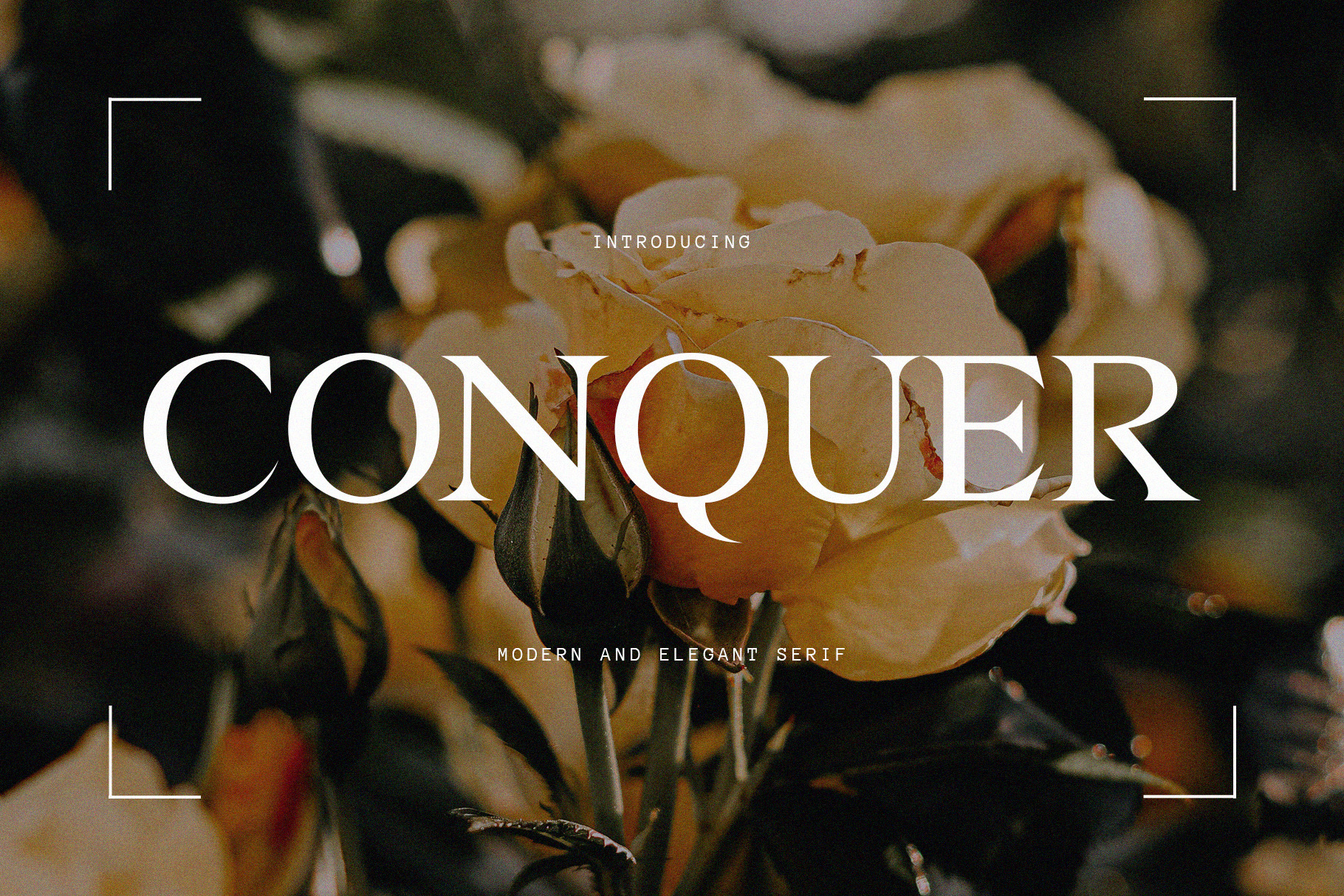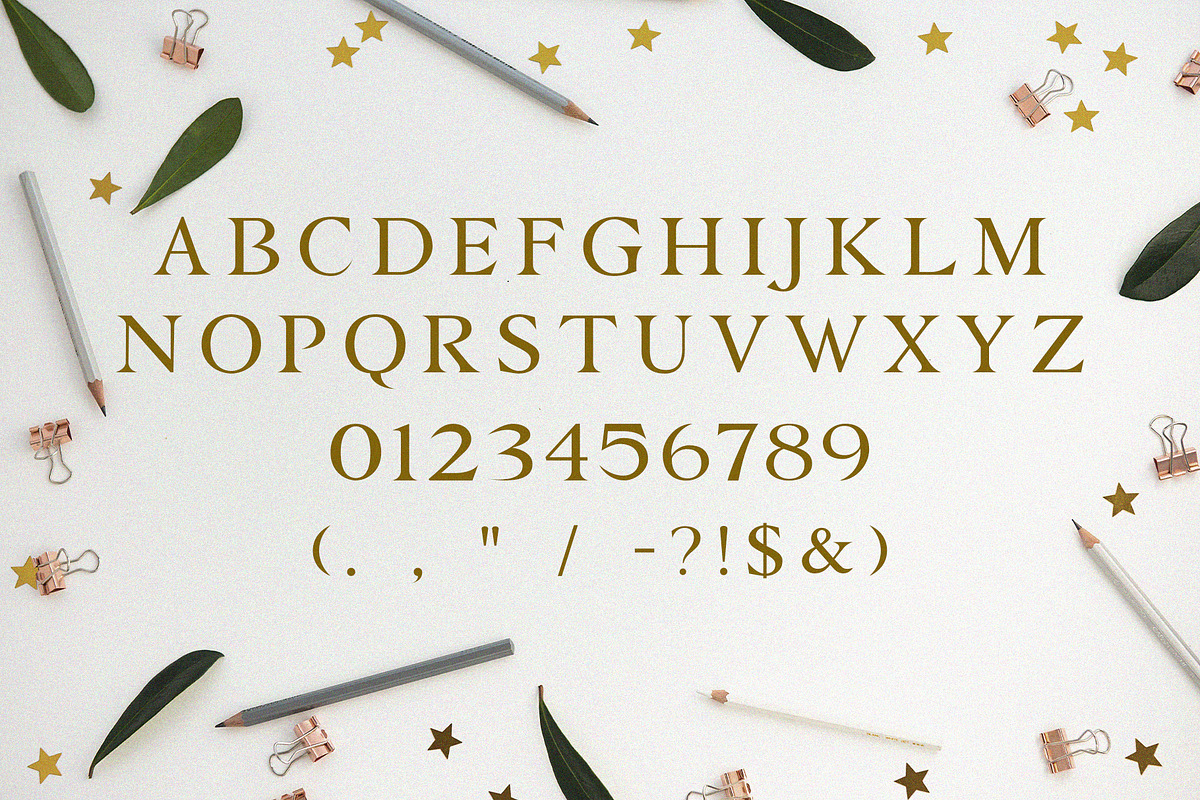
Conquer - modern serif Typeface
Introducing 'Conquer' Font:
Introducing Conquer, a modern indie serif font that captures the essence of creativity and individuality. With its unique and organic letterforms, blending a mix of curves and angles, Conquer brings a sense of playfulness and spontaneity to your design. This contemporary and indie-inspired font is ideal for a range of applications, from music branding to editorial design. Conquer's distinct and expressive style is guaranteed to infuse character and personality into your project, making it stand out with creativity and flair.
Ideal for:
- Modern Designs
- Beauty and Fashion
- Elegant Creations
- Versatile Applications
- Social Media Designs
- Ready for Creative Expression
- Immaculately Crafted Letters